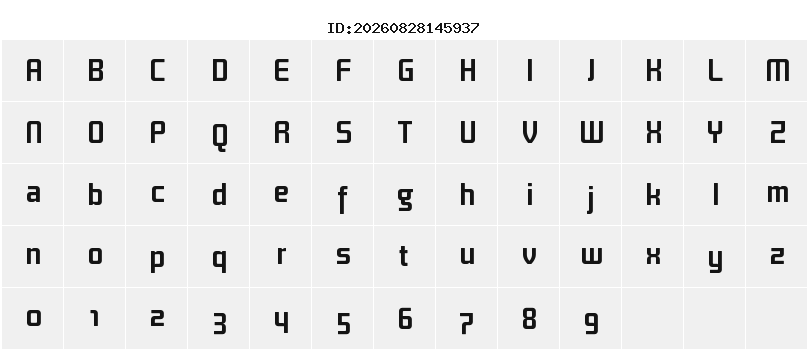
• Font Name: TitanText
• Full Font Name: TitanText-Bold
About TitanText.ttf
TitanText.ttf is a modern, elegant sans-serif font designed for ultimate readability and visual harmony. Perfect for branding, headlines, web design, and print materials.